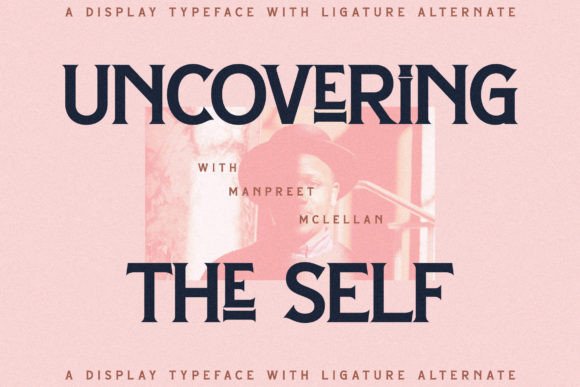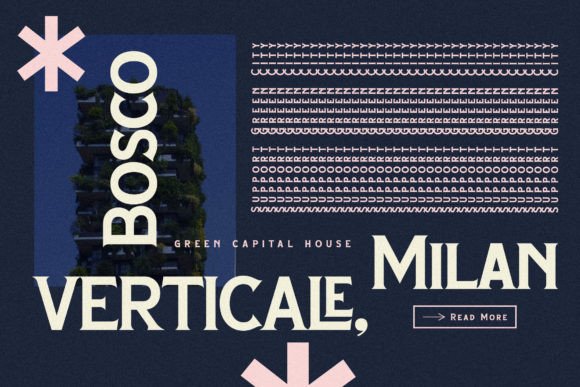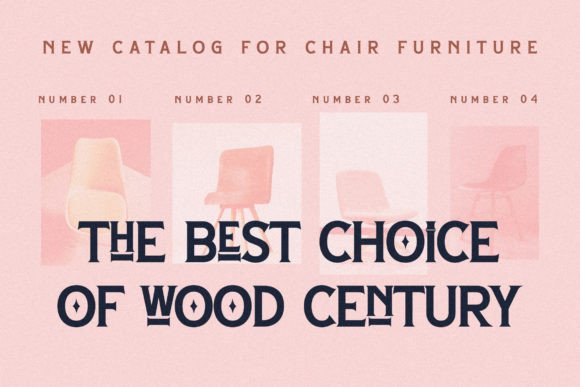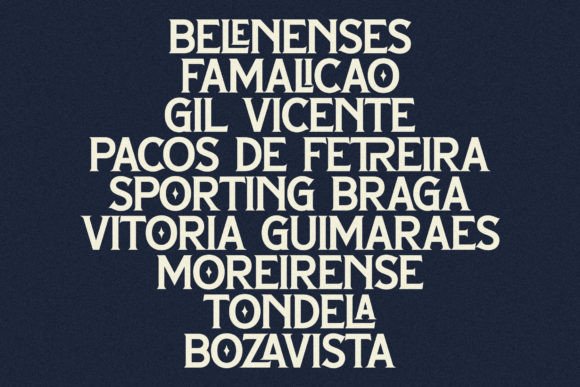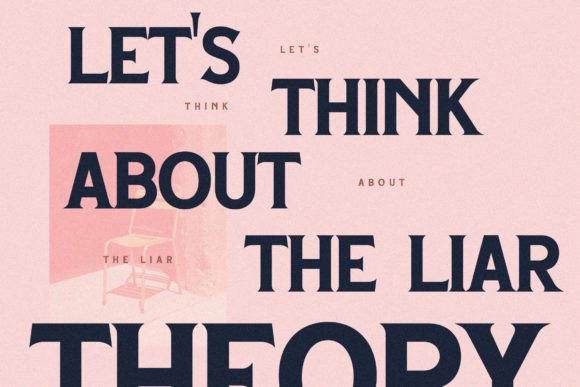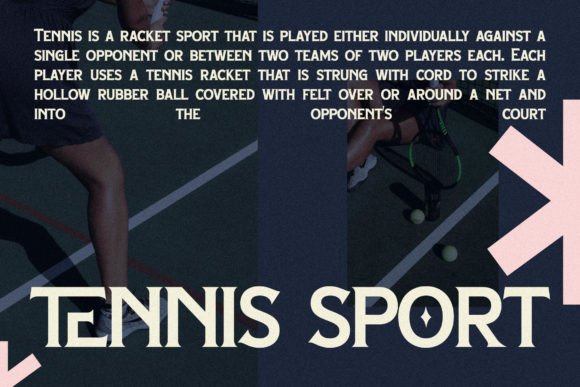
Introduction to Morfelan Font
Have you ever found yourself staring at a blank page, struggling to bring your creative project to life? We’ve all been there, and it’s moments like these that we crave a little inspiration. For designers, the right font can be the game-changer that sparks the magic. That’s where the Morfelan Font comes in – a modern serif font that’s sure to elevate your designs and leave a lasting impression.
With its sleek lines and high-quality design, Morfelan Font is a valuable resource for any creative project. Whether you’re working on a logo, brochure, or website, this font is sure to provide the perfect touch. And the best part? It’s available for free download, making it an accessible design resource for designers of all levels.
Key Features of Morfelan Font
- Unique, hand-drawn design with a touch of elegance, making it perfect for creative projects that require a high level of sophistication.
- Includes multiple font styles and weights, offering a range of design possibilities for various design applications.
Honest Review: Morfelan Font
I recently stumbled upon the Morfelan Font and was impressed by its unique design. The font is perfect for a creative project that needs a touch of elegance and sophistication. The transparent background allows for seamless integration with any design resource, making it a great addition to any project.
Here are some of the features that stood out to me:
- ✨ High quality design that’s perfect for creative projects
- ✨ Unique and elegant design that adds sophistication to any project
- ✨ Transparent background for seamless integration with design resources
- ⚠️ Limited font styles and weights, which may not be suitable for complex projects
- ⚠️ May not be compatible with all design software or operating systems
Overall, I was impressed by the Morfelan Font’s design and features. It’s a great resource for designers looking for a high-quality, elegant font that’s perfect for creative projects. With a few minor limitations, I would highly recommend the Morfelan Font to any designer looking for a reliable design resource.
Tips for Getting the Most Out of the Morfelan Font
To get the most out of the Morfelan Font, use it with a transparent background to create a clean and minimalist design. You can also experiment with different font sizes and styles to add visual interest to your project.
The Morfelan Font is ideal for a wide range of creative projects, including:
- Business card design
- Brochure design
- Infographic design